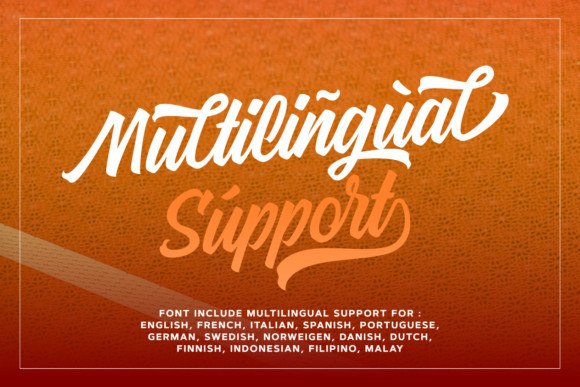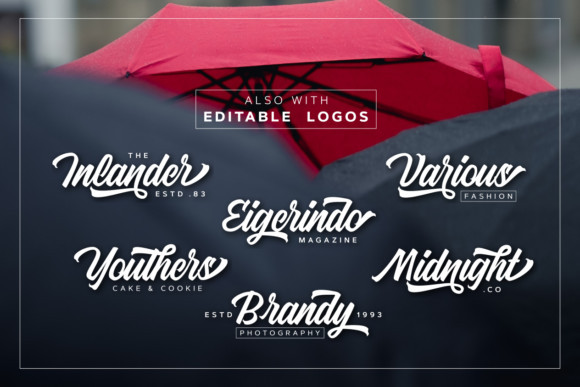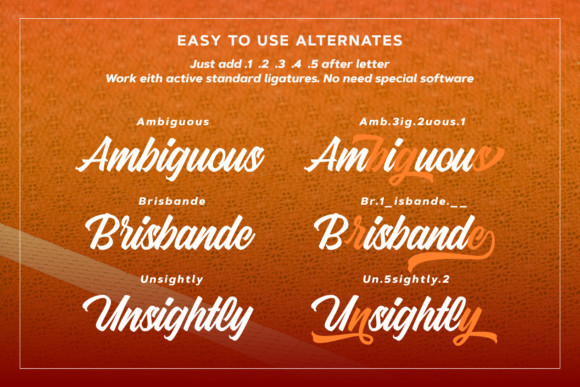
Marioline Barnard Script Font
Marioline Barnard Font is a script font for branding, created by Studioashshiddiq. This is a handwritten calligraphy font that is perfect for branding, social media headers, product packaging, wedding invites and cards and so on. Marioline Barnard is a sweet and charming script with a vintage look. Get inspired by its unique style!